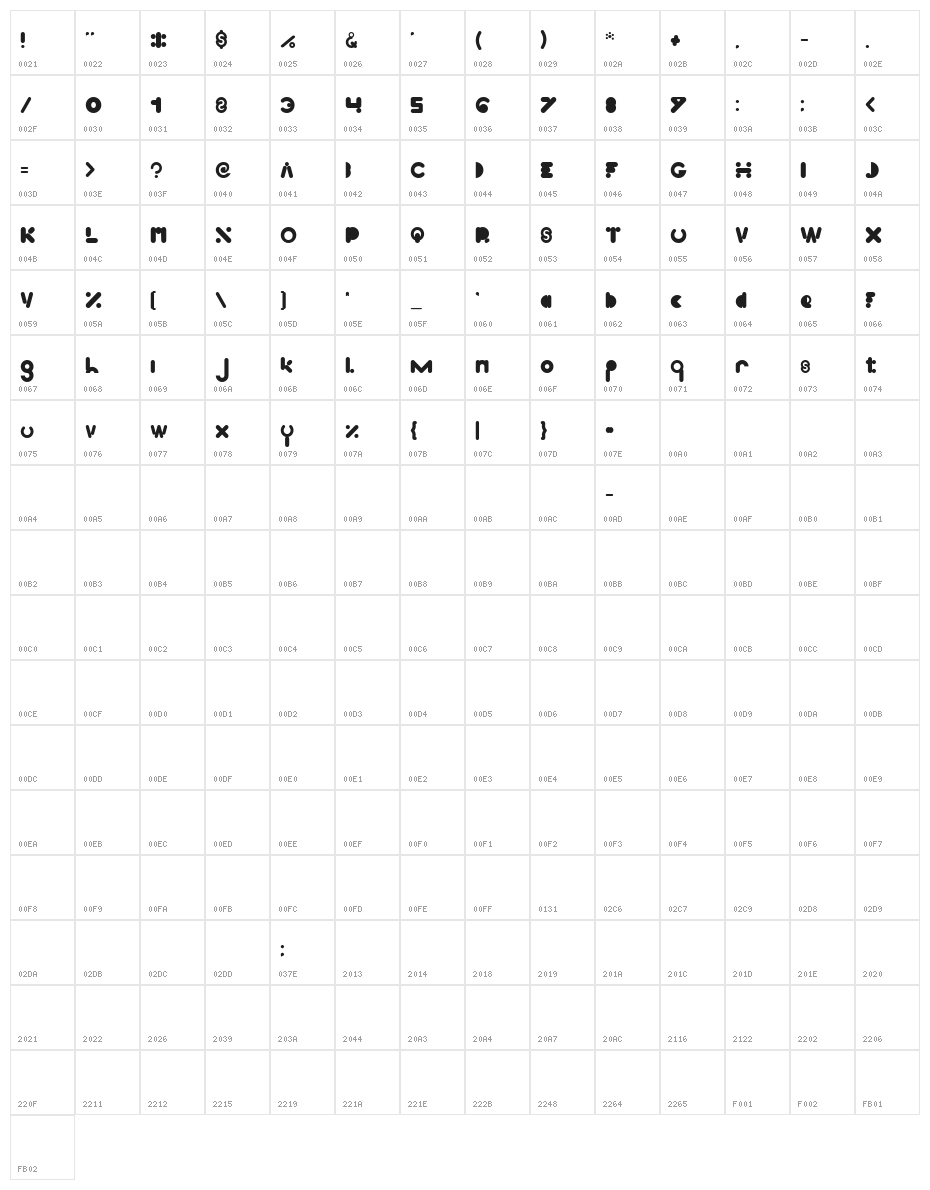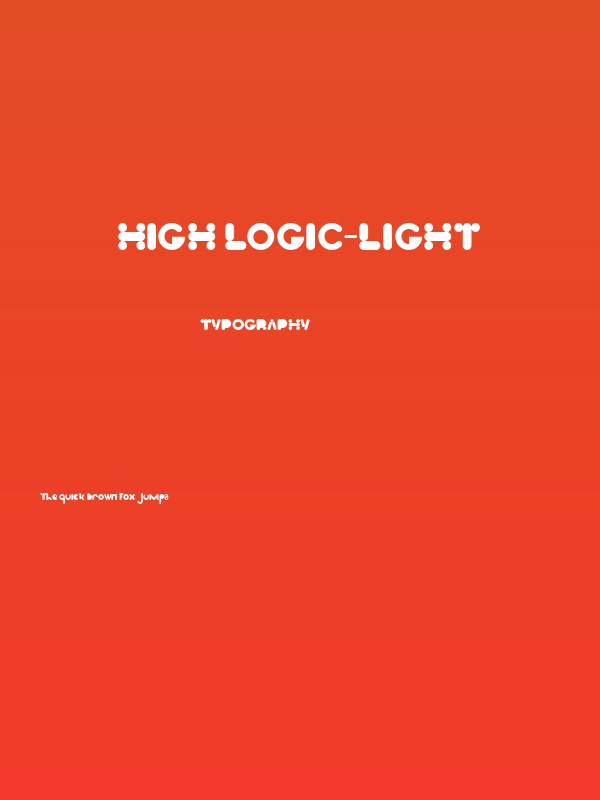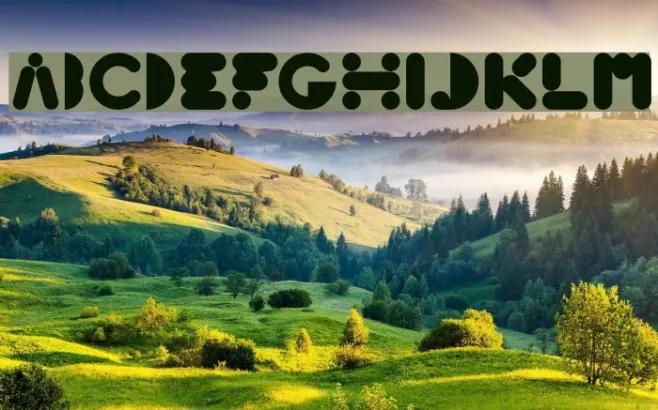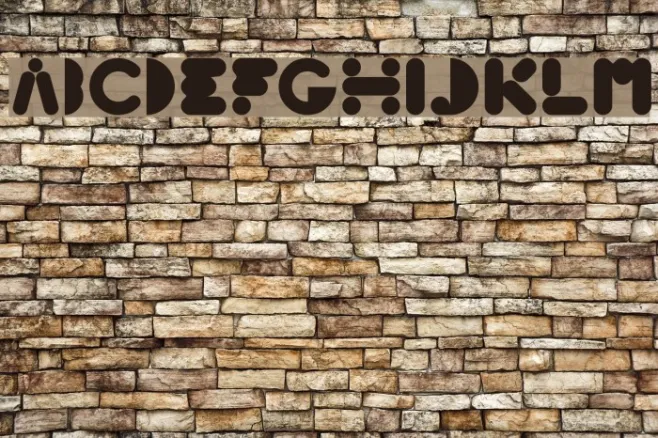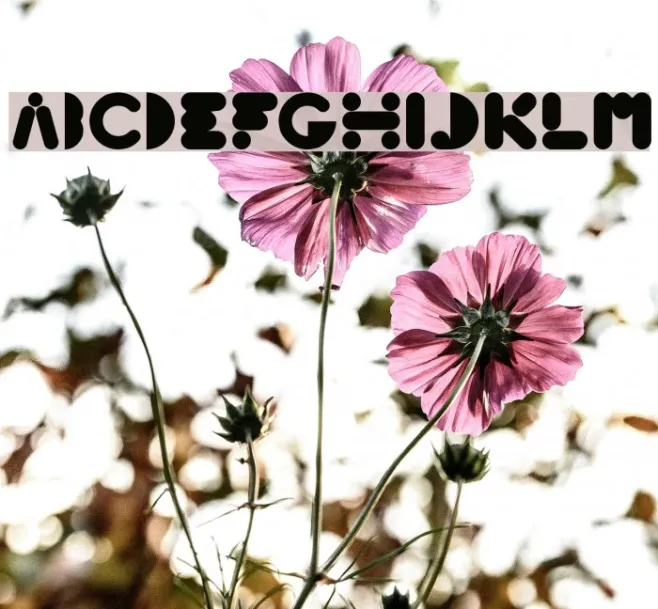
High Logic-Light Font
High Logic-Light Description
This font features a bold and playful design, characterized by its rounded, geometric shapes and consistent stroke thickness. The letters are constructed with a combination of circles and straight lines, giving it a modern and futuristic appearance. The uppercase and lowercase letters maintain a uniform style, with some characters like 'G', 'Q', and 'S' having unique, eye-catching forms. The numerals and special characters follow the same design principles, ensuring a cohesive look across all glyphs. The font's distinct style makes it suitable for creative and unconventional projects.
| Proposed Projects | Ideal for branding, posters, album covers, and any project requiring a modern, eye-catching typeface. |